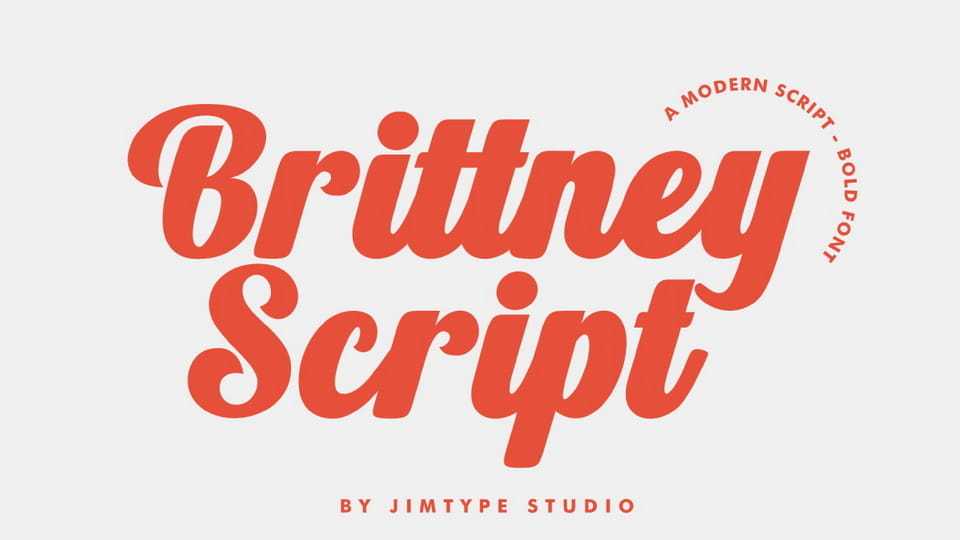
Download Brittney Script font, bold, simple, and oh-so-juicy typeface, perfect to level up your creative game. This versatile script adds that perfect touch of personality without overcomplicating things.